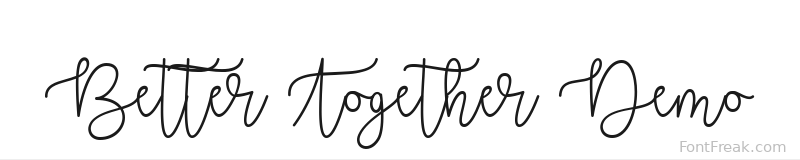
Better Together Demo
The Better Together Demo font by Misti Hammers is a charming script typeface that exudes warmth and personality. This font features a flowing, handwritten style, characterized by its graceful curves and elegant loops. With a moderate stroke weight and soft contrast, it strikes a balance between readability and artistic flair. The spacing is well-considered, allowing for a seamless flow that enhances its handwritten appearance, making it an excellent choice for a variety of design projects.
This versatile font is perfect for wedding invitations, where its romantic and inviting style can add a personal touch. It also works beautifully for greeting cards, helping to convey heartfelt messages in a friendly manner. Small business owners can utilize Better Together Demo for branding materials, such as logos or menus, to create a memorable identity that resonates with customers. Additionally, content creators can incorporate it into social media graphics, giving their posts a distinctive and approachable look that stands out in crowded feeds.
The target audience for this font includes graphic designers looking for a unique typeface to elevate their projects, as well as small business owners seeking to enhance their branding. Content creators will also find this font appealing for its ability to convey emotion and personality, making their digital content more engaging.
What sets the Better Together Demo font apart is its ability to combine elegance with a casual vibe, making it suitable for both formal and informal applications. Its playful yet sophisticated nature ensures that it captures attention while remaining approachable. For those interested in adding a touch of charm to their designs, the Better Together Demo font is available for free download, providing an excellent opportunity to elevate any creative project.